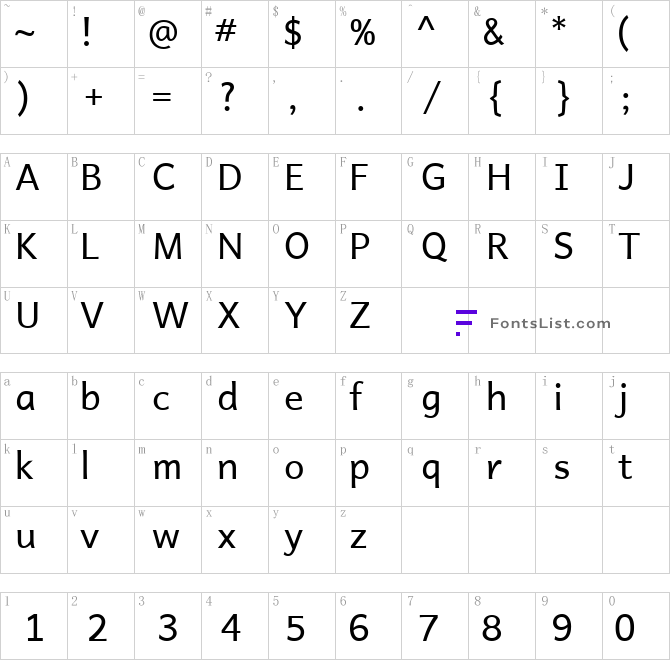
• Font Name:Andika Basic
• Full Name:Andika Basic
Andika-Basic.ttf is a very beautiful artistic font, Andika-Basic.ttf is widely used in the design and printing of various books and pictures,Andika-Basic.ttf has a strong visual impact,Andika-Basic.ttf is a commonly used font in newspapers, magazines and books, and is used in posters, e-commerce Poster design, store design, logo design, font design and other fields.Andika-Basic.